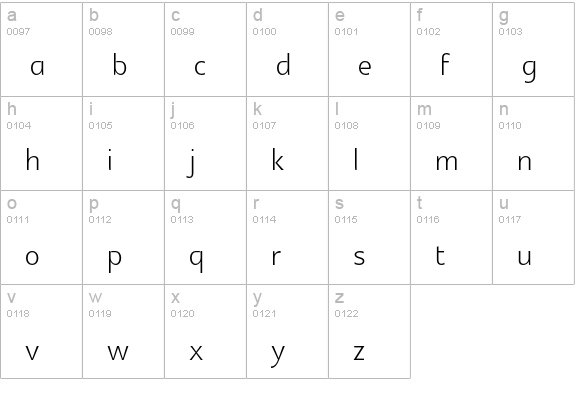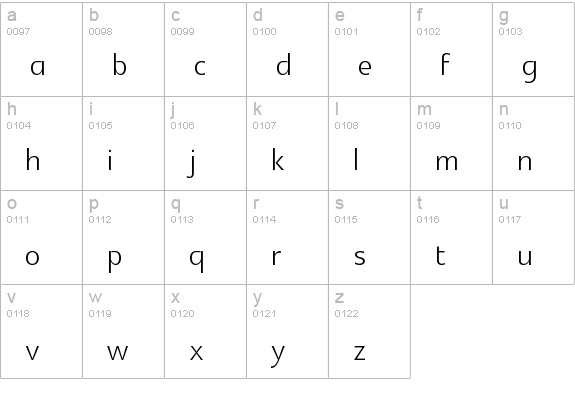
Glametrix Light Font Details
Glametrix Light is a refined, elegant variant in the Glametrix typeface family \xE2\x80\x94 well suited to elegant body text, refined sub-headings, and luxury branding.
Introducing Glametrix Light, a truly mesmerizing font that exudes elegance and sophistication. With its delicate strokes and graceful curves, this font effortlessly captures the essence of glamour and style. Whether you're designing a logo, creating stunning headlines, or crafting beautiful invitations, Glametrix Light is the perfect choice to add a touch of sophistication to your project. What sets Glametrix Light apart is not only its stunning aesthetics but also its versatility. This font is designed to be legible at various sizes, making it suitable for both large-scale designs and smaller text applications. Its clean lines and balanced proportions ensure that every character is clear and easy to read. But what makes Glametrix Light even more appealing is that it is available for free download at FontsMarket.com. Yes, you read that correctly - this captivating font can be yours without spending a dime. FontsMarket.com offers a vast collection of high-quality fonts, and Glametrix Light is one of the many jewels in their treasure trove. By choosing Glametrix Light, you not only get a visually stunning font but also the freedom to use it in your personal or commercial projects without any restrictions. Whether you're a professional designer looking to enhance your portfolio or a hobbyist seeking a font to elevate your creative endeavors, Glametrix Light is the perfect choice. So why wait? Head over to FontsMarket.com now and discover the allure of Glametrix Light. Download this captivating font and let it add a touch of glamour and sophistication to your designs. Embrace the freedom of creativity with Glametrix Light – a font that is as dazzling as it is free.